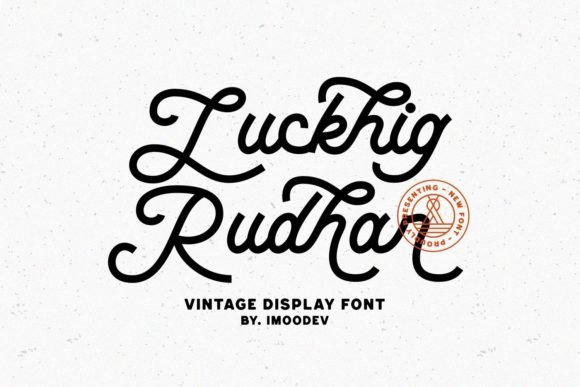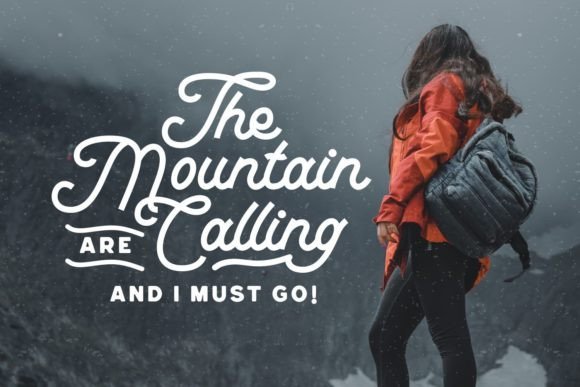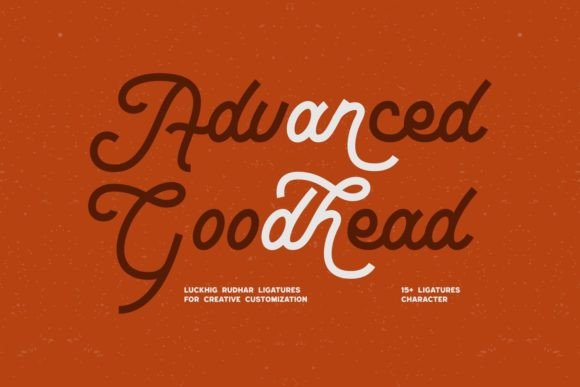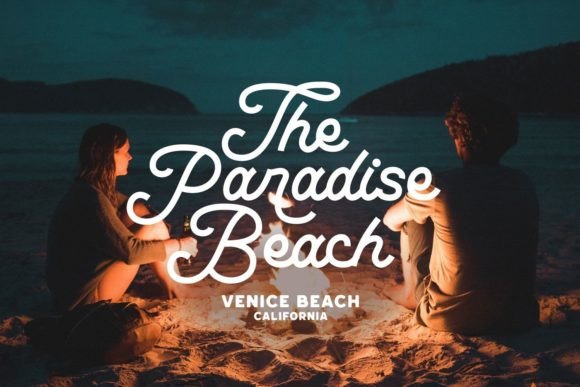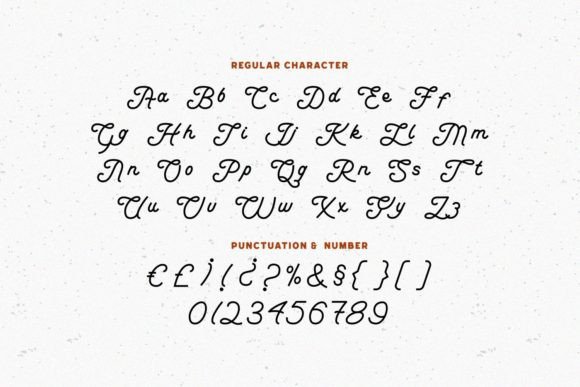
Luckhig Rudhar Font
About Luckhig Rudhar Font
Luckhig Rudhar font is a stylish and elegant script typeface that combines vintage charm with modern sophistication. This font is designed for creatives who want to add a refined and classic touch to their projects. Whether you’re working on branding, invitations, packaging, or any design that needs a dash of timeless elegance, Luckhig Rudhar font fits perfectly.
Vintage Elegance with Modern Flair
The vintage vibe of Luckhig Rudhar font makes it stand out. Its flowing, cursive strokes and smooth connections between letters evoke a sense of nostalgia, yet the font remains fresh and relevant for today’s design needs. This balance between old-world charm and contemporary style allows you to create stunning and sophisticated visuals.
Versatile Applications for Designers
Luckhig Rudhar font adapts well to a variety of design uses, including:
• Branding and Logos: Its elegant style elevates brand identities, especially for luxury, fashion, and boutique businesses.
• Wedding and Event Invitations: The vintage script adds romance and sophistication to special occasion cards.
• Product Packaging: Use this font to create packaging that feels artisanal and premium.
• Quotes and Posters: Enhance your messages with a classy handwritten look that attracts attention.
Thanks to its versatile character, Luckhig Rudhar font is a valuable tool for designers across many industries.
Exceptional Readability and Style
Despite its decorative nature, Luckhig Rudharfont maintains excellent readability. The carefully crafted letterforms and balanced spacing ensure that your text looks clear and beautiful, whether it’s displayed in large headlines or smaller print. This readability combined with style makes it perfect for a wide range of professional and creative projects.
Why Choose Luckhig Rudhar Font?
Choosing Luckhig Rudharfont means opting for a script typeface that offers both style and substance. It brings a vintage elegance that can transform any design into a work of art. Moreover, its timeless appeal means your projects will look classic yet fresh, standing out in a crowded market.
Tips for Using Luckhig Rudhar Font
• Pair with simple sans-serif fonts to highlight the script’s beauty without overwhelming your design.
• Use it for logos and branding projects that aim for a sophisticated or retro aesthetic.
• Incorporate in wedding stationery to add a personal and elegant touch.
• Experiment with font size and spacing to create unique headers or display text.
In summary, Luckhig Rudharfont is a stylish, elegant, and vintage-inspired script font that suits a wide array of creative projects. It blends timeless beauty with modern design sensibilities, offering designers a versatile and refined choice for logos, invitations, packaging, and more. Add Luckhig Rudharfont to your toolkit and give your designs a touch of classic sophistication that never goes out of style.